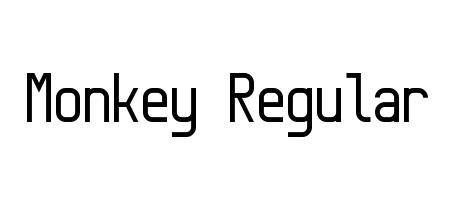
Monkey
By Tommy Ettinger
Monkey Regular: A clean, sans-serif typeface, Monkey Regular boasts a friendly, approachable feel. Its simple, geometric letterforms convey a sense of modernity and clarity. The even spacing and consistent stroke weight give it a balanced, readable quality, suitable for both body text and headlines. It’s a versatile font, suggesting playfulness without sacrificing professionalism.